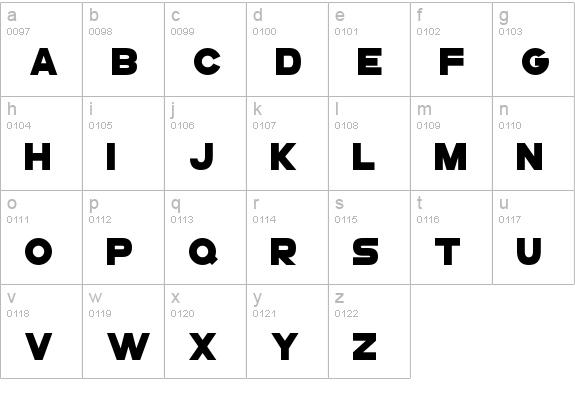
GoGo Poster Punch Font Details
Introducing GoGo Poster Punch font, a striking display typeface that combines boldness with a touch of playfulness. This font is perfect for creating eye-catching posters, banners, and headlines that demand attention. With its unique design and strong visual presence, GoGo Poster Punch is sure to make your designs stand out from the crowd.